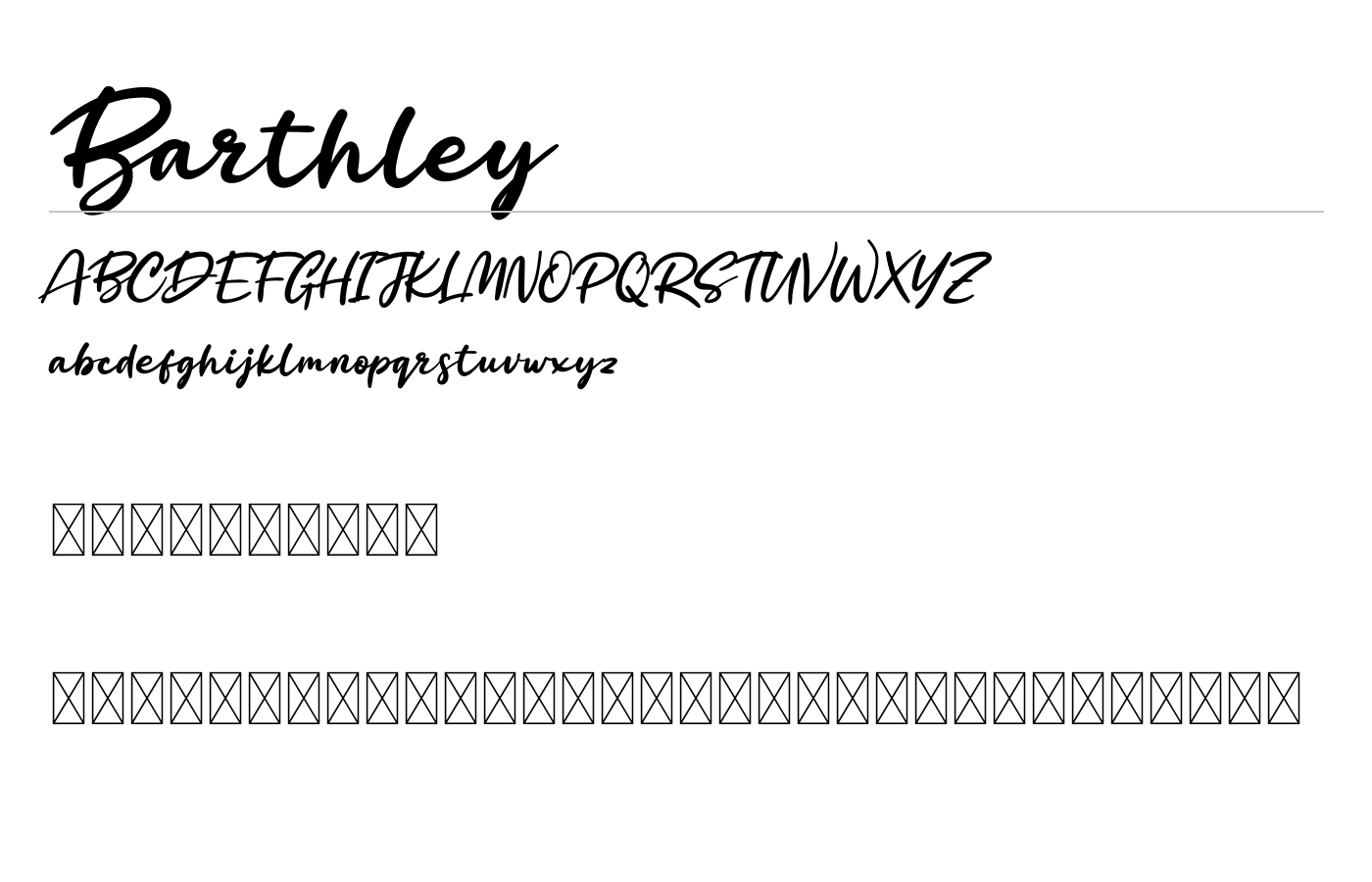
Barthley is a stylish script font featuring a smooth, flowing design with moderate weight and a friendly, modern feel. Its clean, connected letterforms and natural rhythm make it perfect for branding, invitations, and creative projects that want to convey elegance with a personal touch. This font works best in headlines and logos where a unique handwritten look adds warmth and personality.
Barthley Font